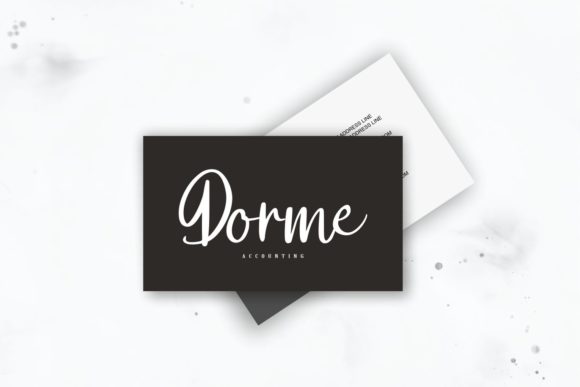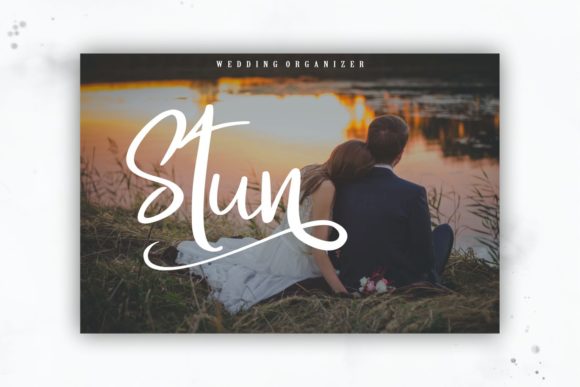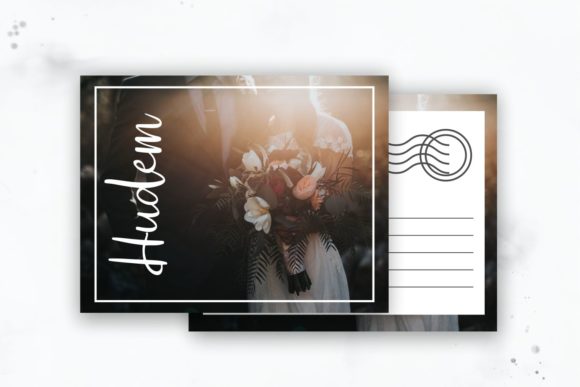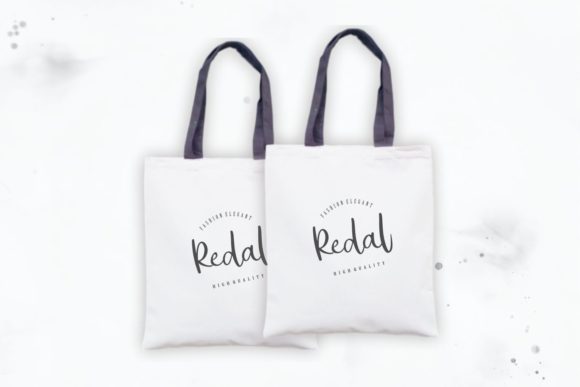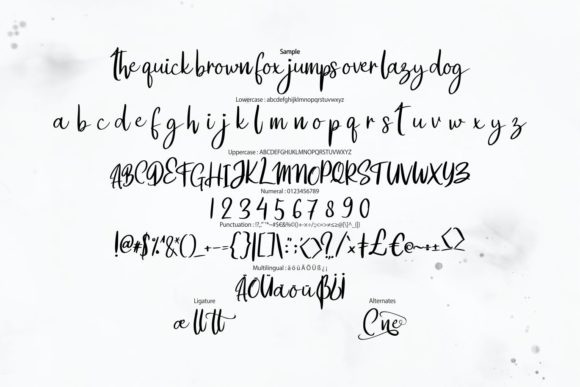
HomeScript FontsCatline Font Script Fonts Catline Font FacebookXPinterestWhatsApp Catline Font Poster 2 Catline Font Poster 3 Catline Font Poster 4 Catline Font Poster 5 Catline Font Poster 6 About Catline Font Catline is perfectly suited for a wide variety of projects. Fall in love with its charming look & feel! DOWNLOAD ON CREATIVE FABRICAThis font is sold and delivered by Creative Fabrica. Font Canyon may earn a commission if you buy through this link. People also explored Telefante Family Font Bigtedy Font Christmas Background Font Black Bold Font Christmas Snow Font Nooleigh Font Haythen Maglley Font Fresh Today Font Winter Solstice Font 344 0 TagsCatline Font Previous articleDiotam FontNext articleThe Chuns Font LEAVE A REPLY Cancel reply Comment: Please enter your comment! Name:* Please enter your name here Email:* You have entered an incorrect email address! Please enter your email address here Website: Save my name, email, and website in this browser for the next time I comment. Personal Use Free Kellana Personal Use Free Read more about this font BD Medled Personal Use Free Read more about this font Covelia Personal Use Free Read more about this font Marthissa Personal Use Free Read more about this font BLOG How to Install and Use Fonts on Windows, macOS, and Web Projects How to Install and Use Fonts on Windows, macOS, and Web Projects Fonts are a crucial part of design and branding. Whether you’re designing a... Using Fonts in Digital Marketing: Tips to Strengthen Your Brand Identity Elegant Wedding Invitation Fonts – Handwritten & Script Fonts Best Fonts for T-Shirt Design – Top 2025 Picks